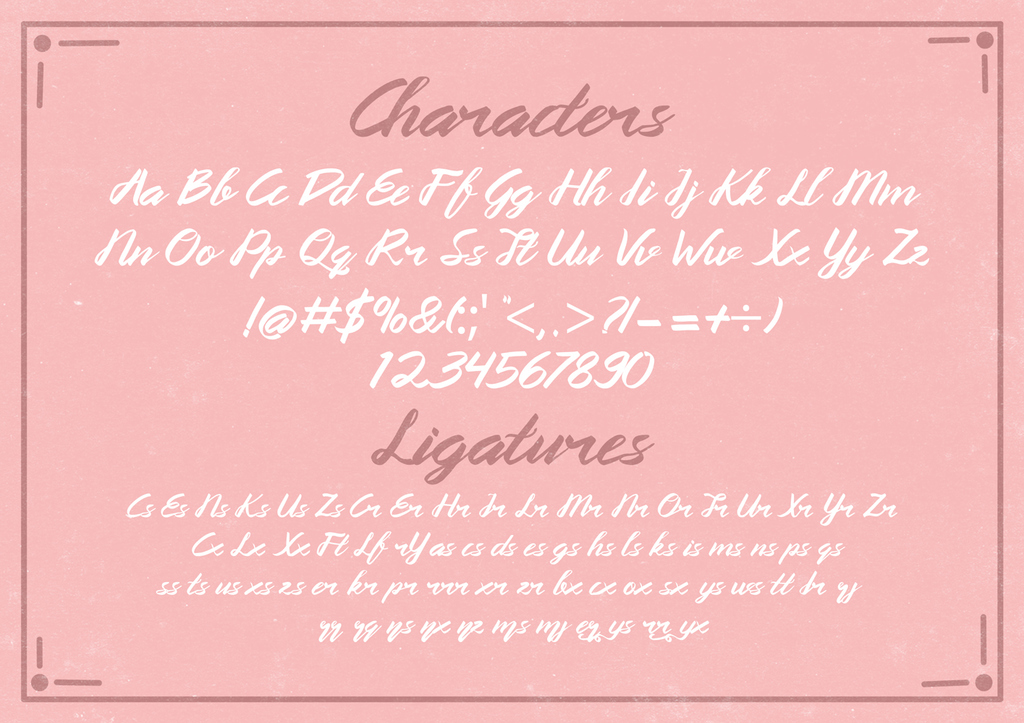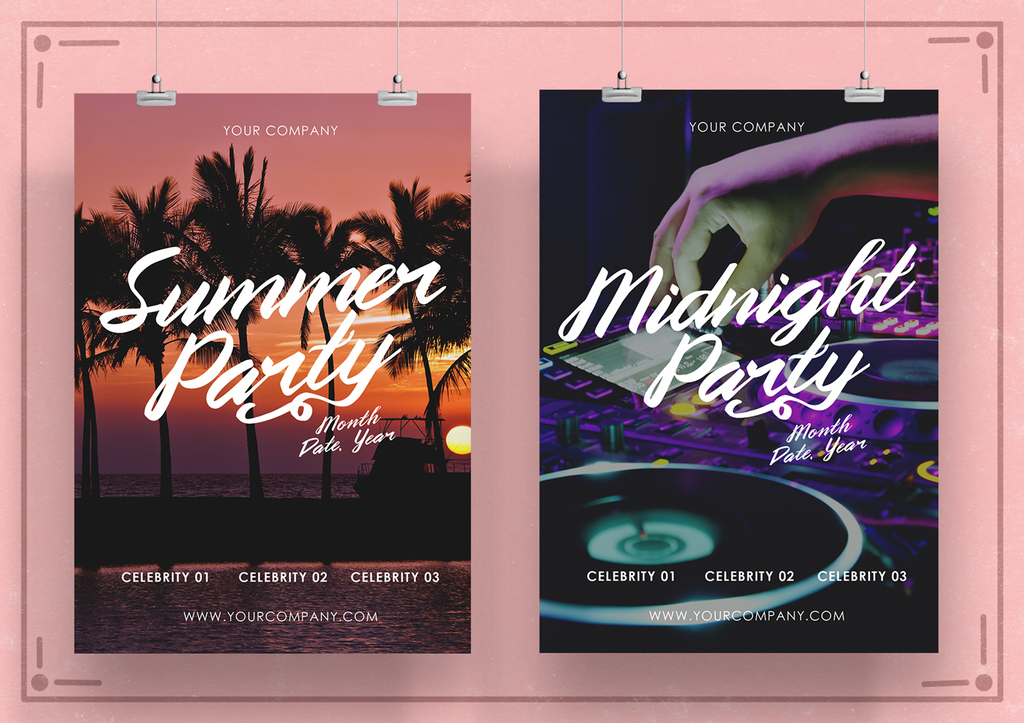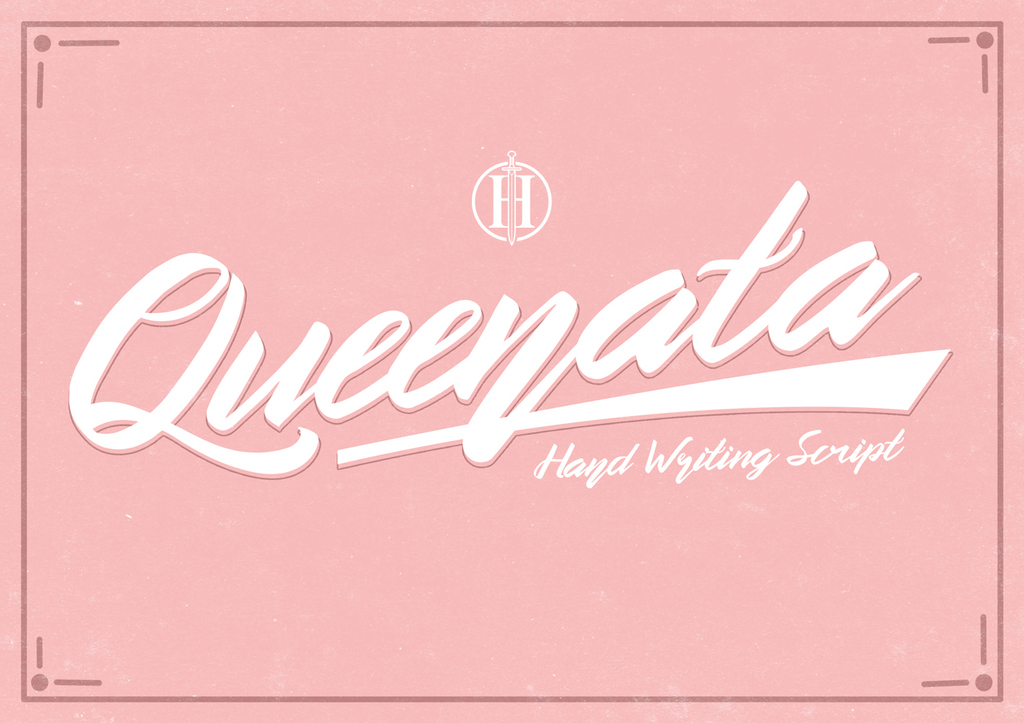
Queenata Script
Queenata Script Font
Queenata is a hand-drawn typeface inspired by people’s handwriting. Suitable for display, title, gigs, labelling, branding projects, posters, invitations and much more. It also useable for handwriting body text.